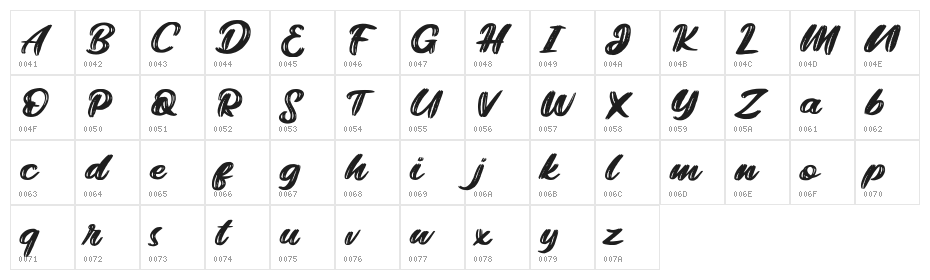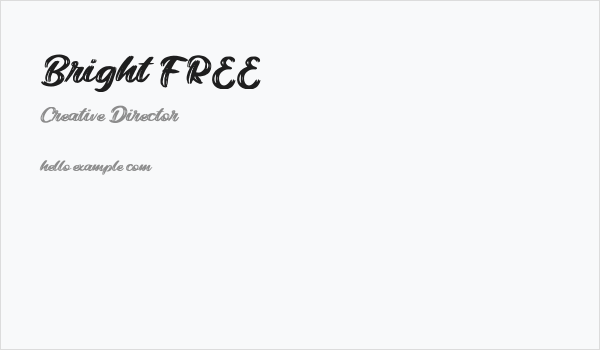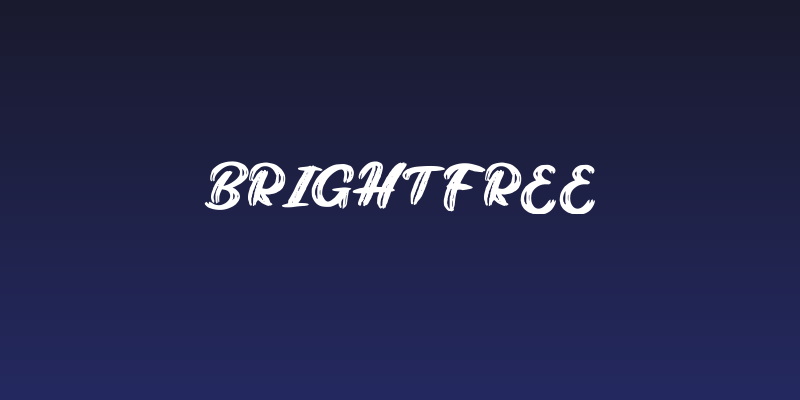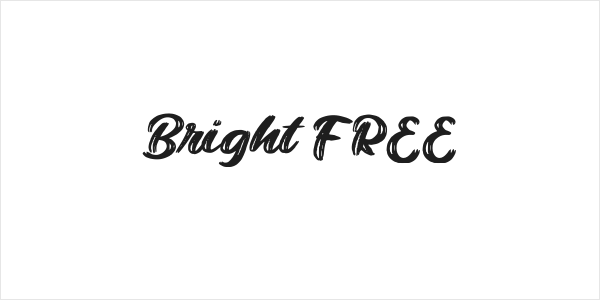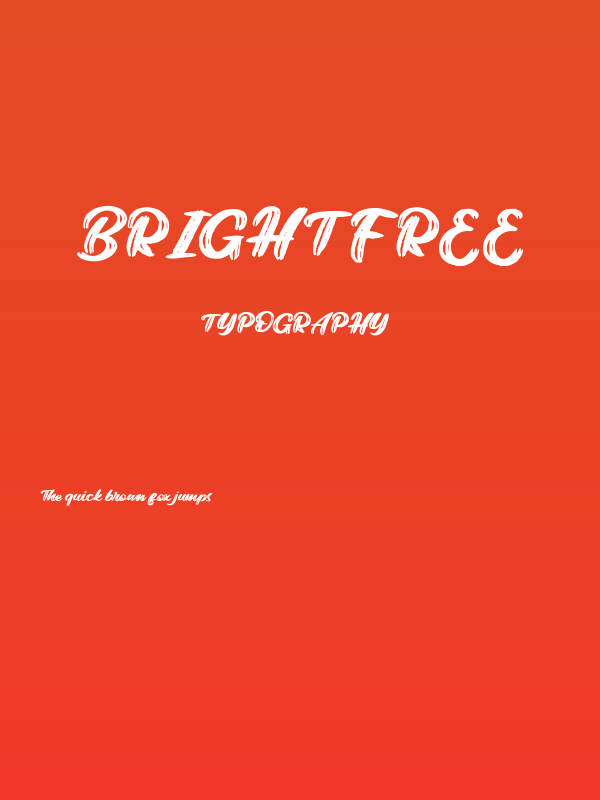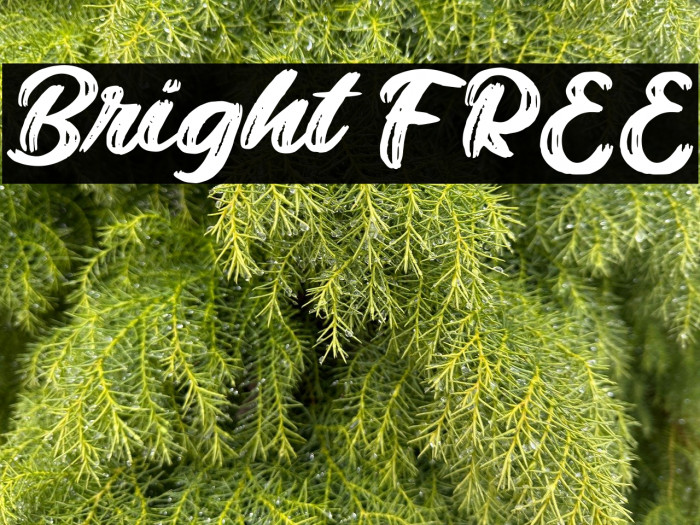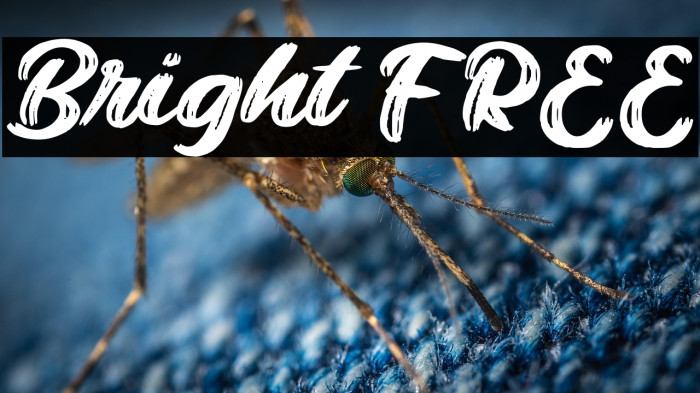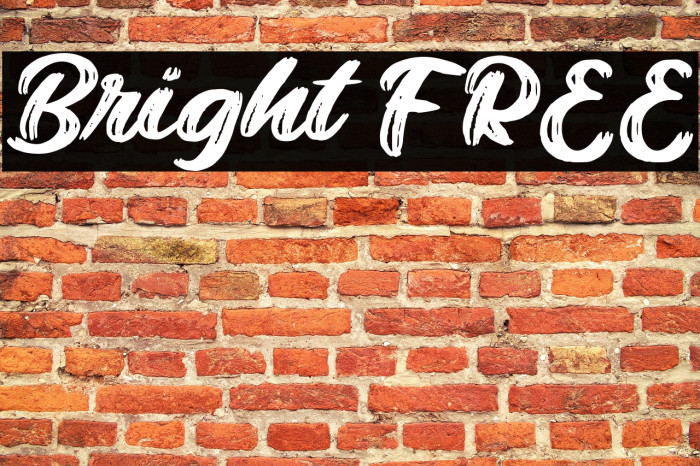
Bright FREE Font
Bright FREE Description
This font features a bold, brush-like script style with a dynamic and energetic appearance. The strokes are thick and expressive, giving each character a sense of movement and flair. The letters are closely spaced, enhancing the cohesive look of the text. The uppercase and lowercase letters maintain a consistent style, with sweeping curves and sharp edges that add to the font's dramatic effect. The overall design is modern and artistic, making it suitable for projects that require a strong visual impact.
| Proposed Projects | Ideal for branding, posters, headlines, and any design requiring a bold, artistic touch. |